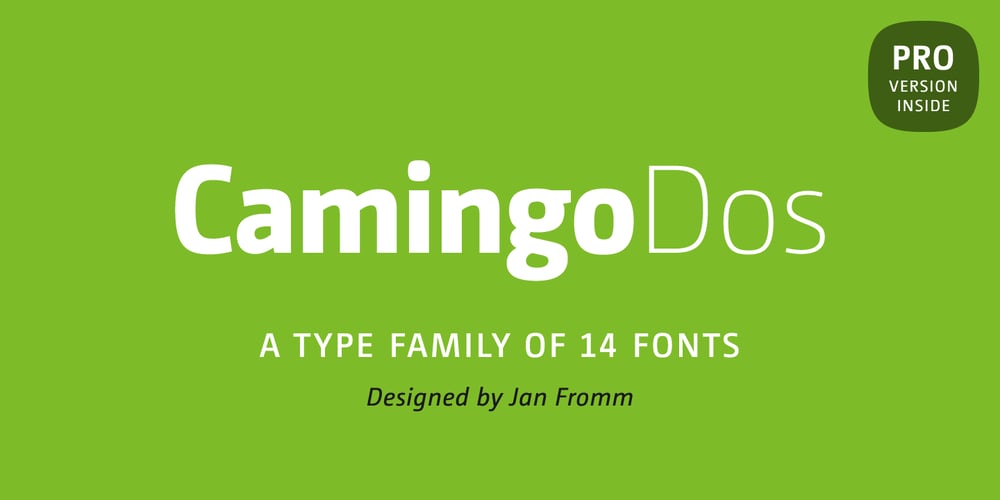
CamingoDos Font Family was designed by Jan Fromm and published by Jan Fromm. CamingoDos contains 28 styles and family package options. CamingoDos is characterised by tight shapes, elliptical curves, subtle contrast and a strong, humanistic appearance: attributes that were all applied with particular care and attention for legibility. It comes in a wide range of seven weights from ExtraLight to Black which makes it perfectly suitable for editorial and corporate design. Furthermore it now has two additional related families: CamingoDos SemiCondensed and CamingoDos Condensed. CamingoDos comes with a Pro version that offers a rich set of expert typographic features like small caps, ligatures, stylistic alternates, different figure sets, arrows, fractions and ordinals.